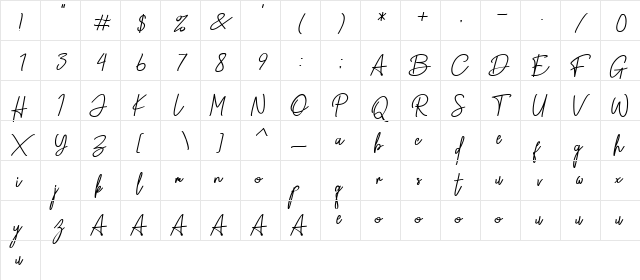
Equalizer Script Regular
| Foundry | Ridha Furqan Ananda |
Design Context for Equalizer Script Typeface
Equalizer Script brings a calligraphic fluidity to the page — its connecting strokes and expressive curves give it an unmistakably human quality.